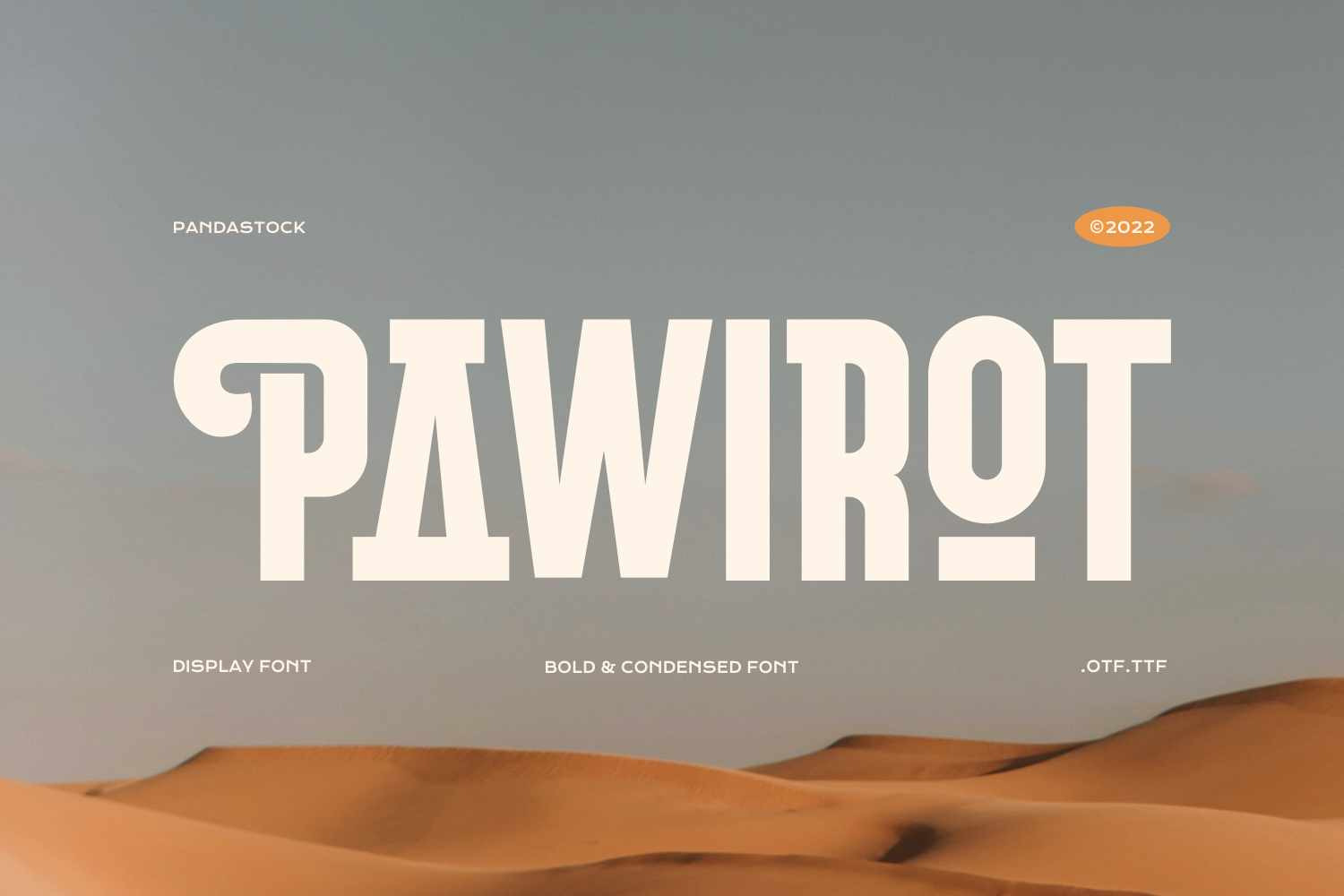
Pawirot - Bold Condensed Font
Pawirot is a bold condensed font with a strong geometric vibe and unique, vintage inspired alternates. The uppercase alternates feature curly, decorative swashes and blocky extensions, adding a sense of retro Americana and classic sign painting style.
This font is made for impactful branding, headlines, logos, posters, packaging, apparel, and anything that needs to pop, especially if you want a bit of vintage energy.